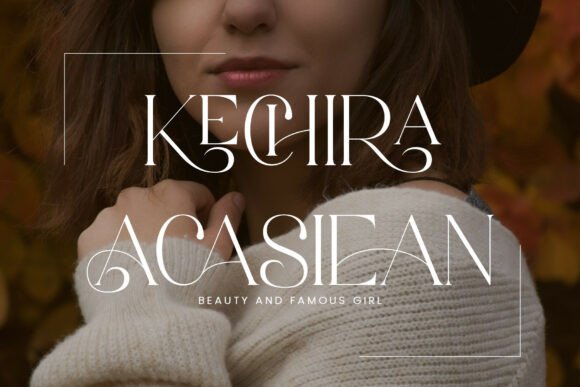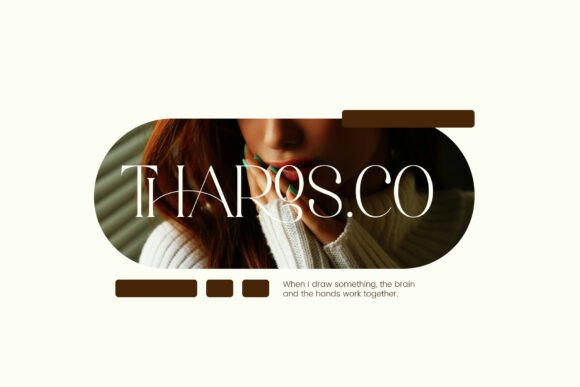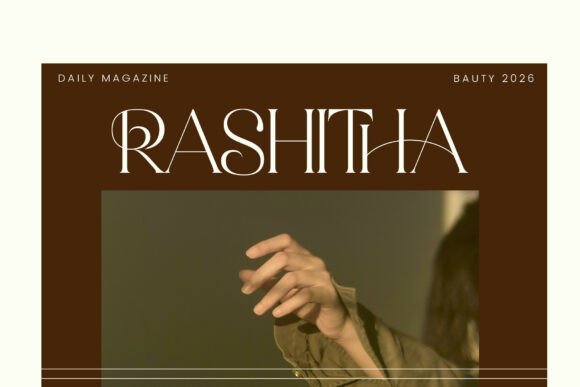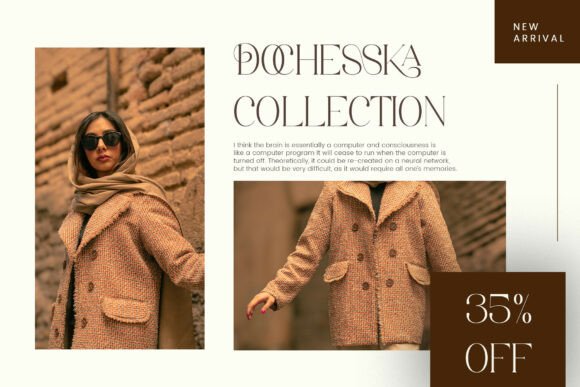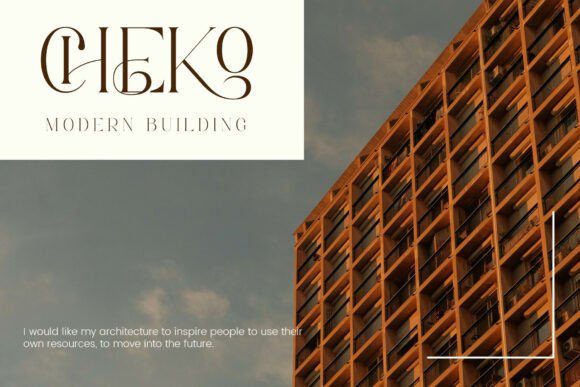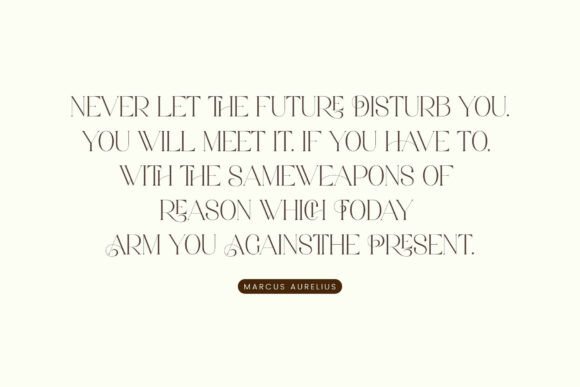
Introduction to Aretha Font
Elevate your visual identity with Aretha, a new modern ligature serif font that masters the art of high-fashion storytelling.
Aretha features razor-sharp serifs contrasted with lyrical, sweeping ligatures that weave characters together like fine jewelry Its sophisticated rhythm and generous x-height provide a sense of timeless luxury, making it a โheroโ typeface for the fashion and beauty industries.